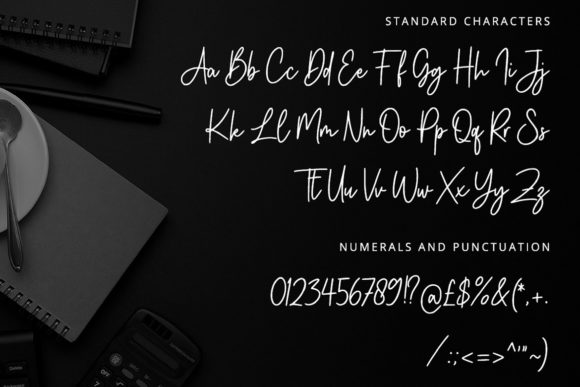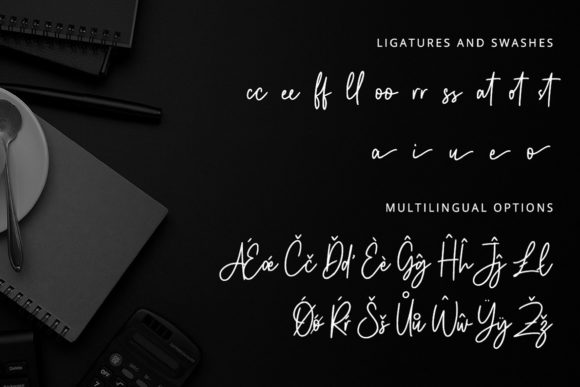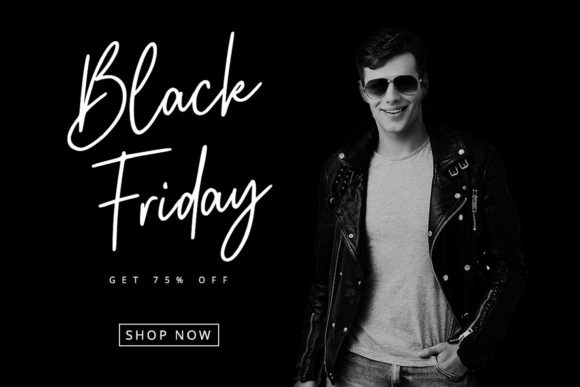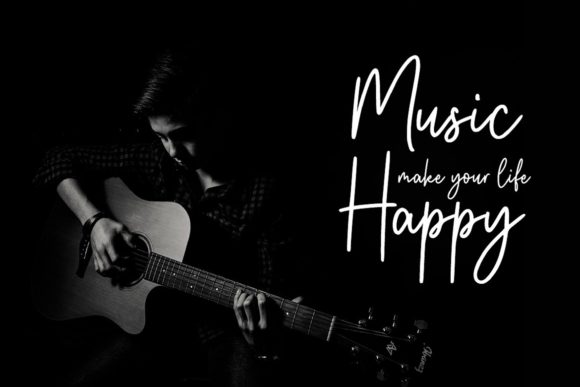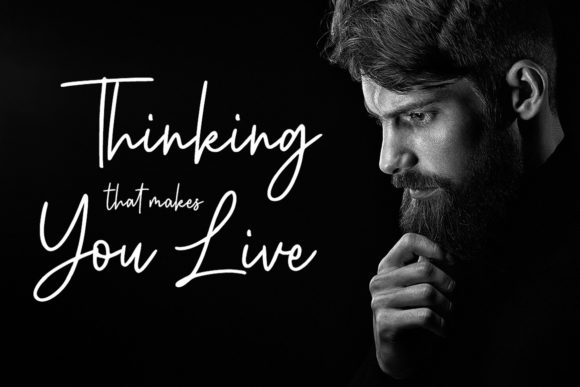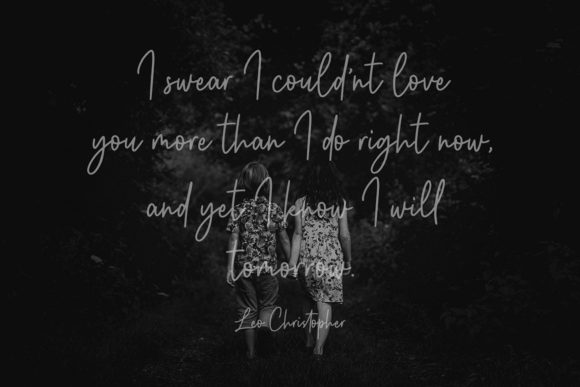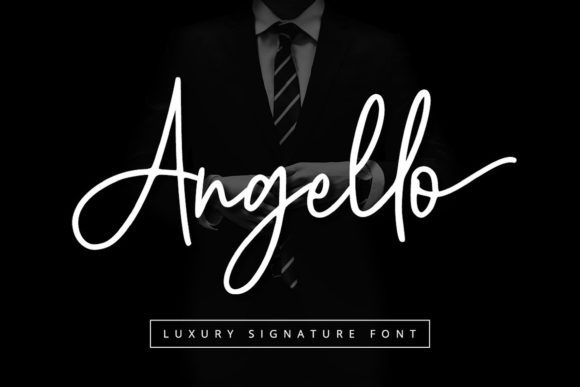
Introducing Angello Font: The Timeless Handwritten Choice for Stunning Designs
Are you on the hunt for a font that adds a touch of elegance and sophistication to your designs? Look no further than Angello Font, a lovely and timeless handwritten font that is perfect for creating eye-catching logos, branding, and quotes. With its unique and beautiful touch, Angello Font is sure to make your design come alive!
Handwritten fonts have a way of adding a personal touch to any design. They evoke a sense of warmth, friendliness, and approachability that is hard to replicate with other font styles. And Angello Font is no exception. With its delicate and flowing lines, this font is sure to capture the attention of your audience and leave a lasting impression.
What Makes Angello Font Special?
So, what sets Angello Font apart from other handwritten fonts? For starters, every letter has a unique and beautiful touch that gives the font a sense of character and personality. The lines are smooth and flowing, with a subtle sense of movement that adds to the font’s elegance. And with its clear and legible design, Angello Font is perfect for use in a variety of applications, from logos and branding to quotes and social media graphics.
Angello Font is a versatile font that is perfect for designers and crafters of all levels. Whether you’re creating a logo for a new business, designing a social media graphic, or crafting a handmade card, this font is sure to be a great choice. Its timeless design ensures that it will never go out of style, and its unique character makes it perfect for adding a personal touch to your designs.
Use Angello Font for:
- Logos and Branding: Create a lasting impression with a custom logo that incorporates Angello Font. Perfect for businesses, products, and services.
- Quotes and Social Media Graphics: Add a touch of elegance to your quotes and social media graphics with Angello Font. Perfect for inspiring and motivational content.
- Handmade Crafts: Add a personal touch to your handmade crafts, such as cards, gift tags, and scrapbooking pages.
- Digital and Print Materials: Use Angello Font in a variety of digital and print materials, including brochures, flyers, and posters.
Tips for Using Angello Font
To get the most out of Angello Font, here are a few tips to keep in mind:
- Use it sparingly: Angello Font is a statement font, so use it sparingly to add emphasis and impact to your designs.
- Experiment with colors: Angello Font looks great in a variety of colors, so don’t be afraid to experiment and find the perfect hue for your design.
- Pair it with other fonts: Angello Font pairs well with a variety of other fonts, so try pairing it with a sans-serif font for a bold and modern look.
Angello Font is a timeless and elegant handwritten font that is perfect for designers and crafters of all levels. With its unique and beautiful touch, this font is sure to add a touch of sophistication and elegance to any design. Whether you’re creating a logo, designing a social media graphic, or crafting a handmade card, Angello Font is the perfect choice. So why wait? Download Angello Font today and start creating stunning designs that will leave a lasting impression!